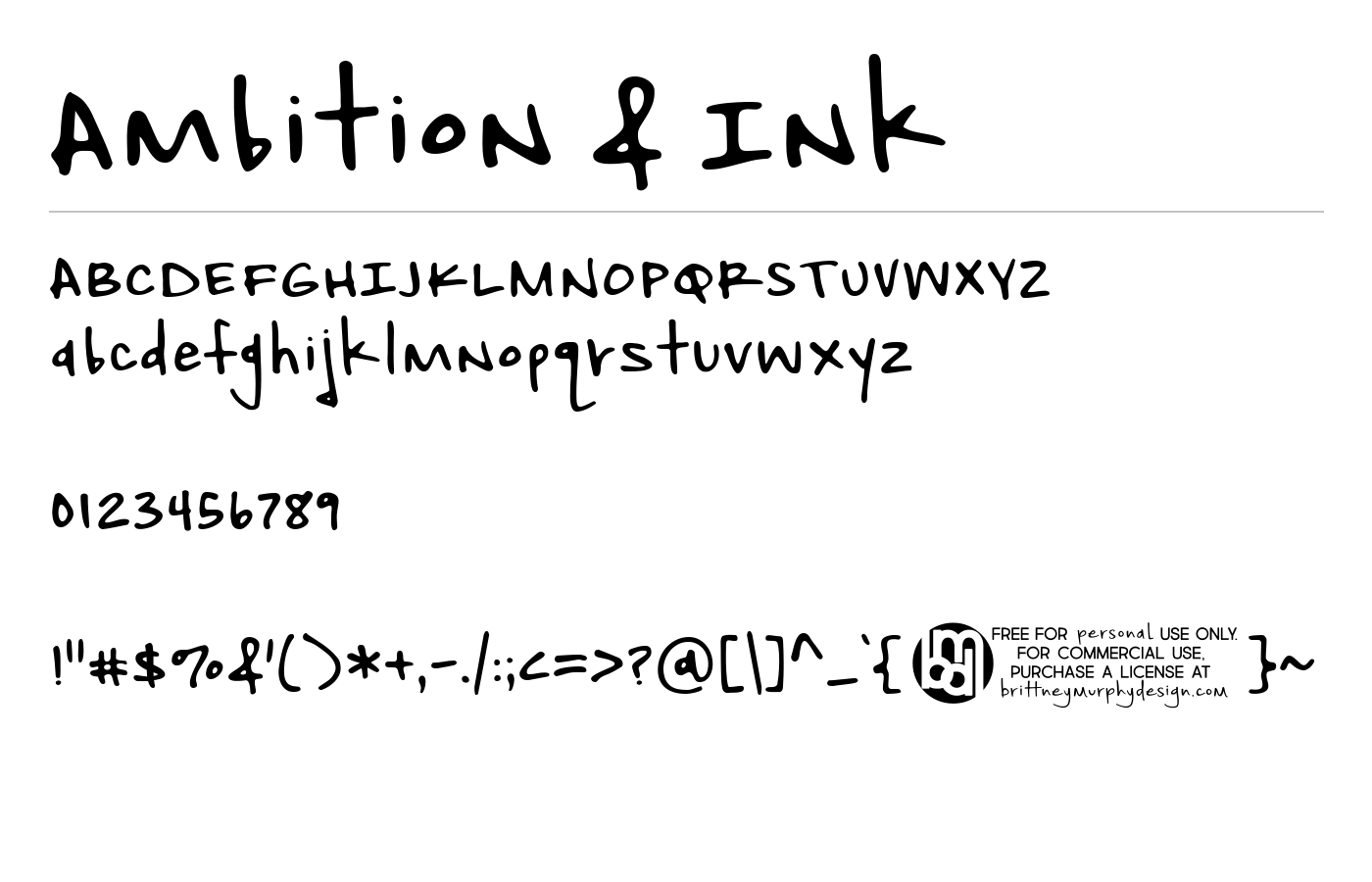
Ambition & Ink is a playful, handwritten sans serif font with an informal and friendly feel, featuring tall, narrow letterforms and a casual, uneven stroke style that mimics natural ink writing. Its light weight and loose spacing give it an approachable vibe, making it ideal for creative projects, personal branding, and casual communication where a warm, human touch is desired. This font works great in logos, social media graphics, and informal editorial content, adding personality and charm without sacrificing readability.
Ambition & Ink Font
About Ambition & Ink Font